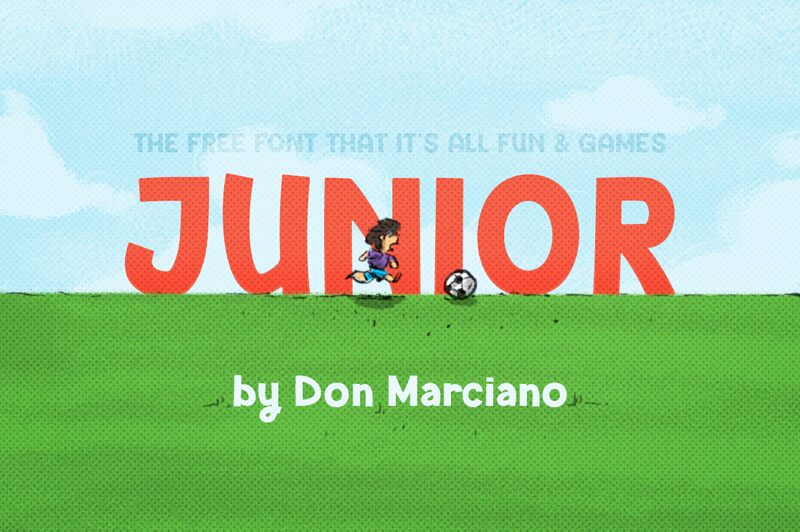
Junior Bold is a playful and expressive display font designed by Juan Miguel Castillo Romero. Its bold weight and cartoon style make it perfect for a variety of projects, such as children's books, packaging design, logos, and advertising campaigns. The cheerful and youthful vibe of Junior Bold can add a touch of fun to your designs while still maintaining legibility. Whether you're creating a brand identity for a candy store or designing a poster for a school event, Junior Bold is the perfect typeface to bring your ideas to life. Get creative with this lively font family today!